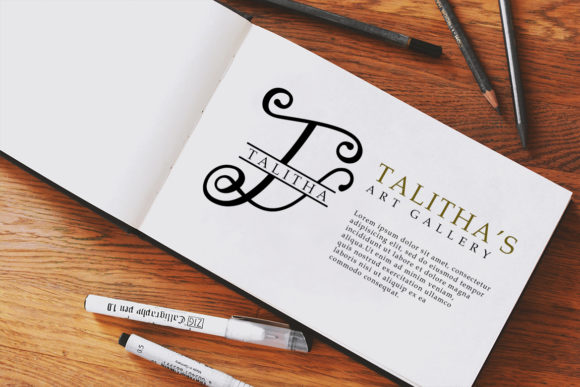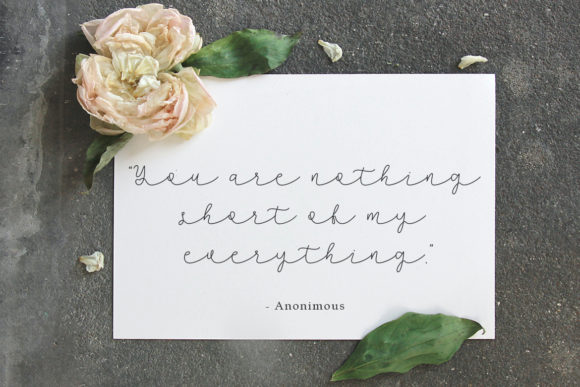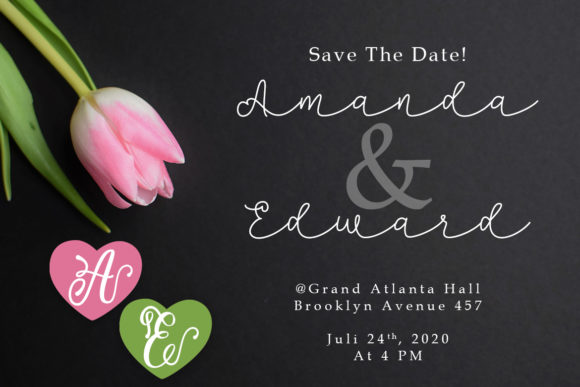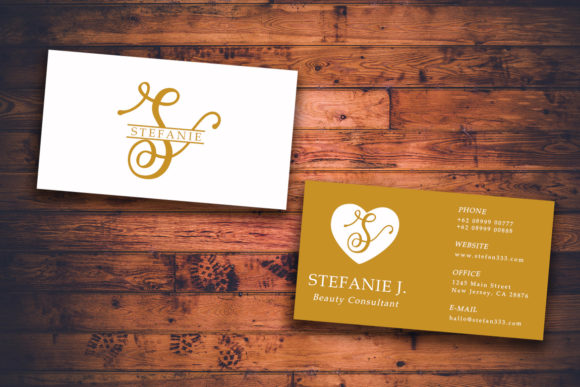
About Lovlia Font
Lovlia is a great handwritten font duo. It perfectly combines a beautiful handwritten style with a swirly monogram font. Combining these two fonts on your next design will give a tasteful and luxurious feel. Fall in love with its authentic feel and use it to create gorgeous wedding invitations, beautiful stationary art, eye-catching social media posts, and cute greeting cards.